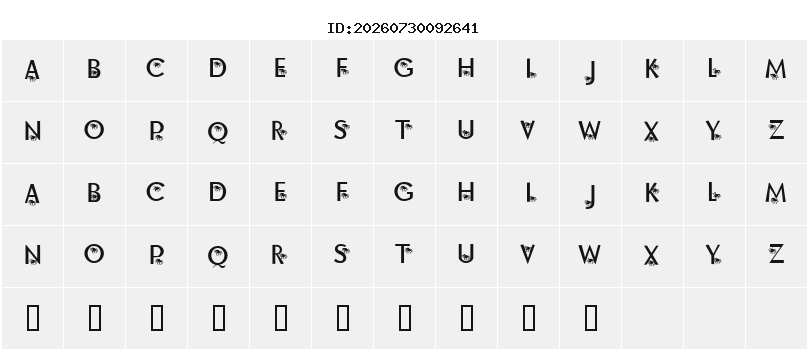
• Font Name: KR Along Came A Spider
KR Along Came A Spider.ttf is a modern, elegant sans-serif font designed for ultimate readability and visual harmony. Perfect for branding, headlines, web design, and print materials.